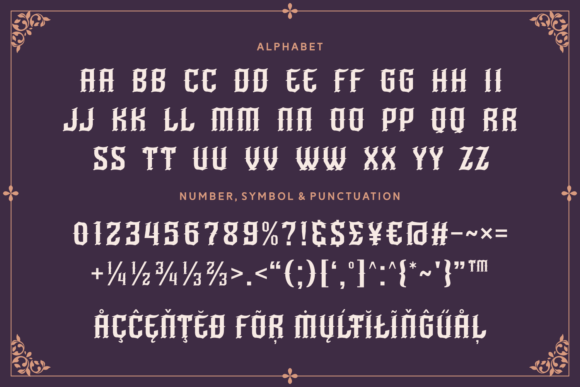
I still remember the frustration of working on a project, pouring my heart and soul into every detail, only to hit a roadblock when it came to choosing the right font. My client wanted something bold, dynamic, and reminiscent of medieval times, but with a modern twist. I scoured the internet, tried out countless fonts, but nothing seemed to fit the bill. That was until I stumbled upon the Giant Leaps Font ✨. It’s a bold and dynamic blackletter font with a modern medieval flair, featuring strong vertical strokes and sharp angular serifs that blend Gothic tradition with contemporary design aesthetics.
An Honest Review of Giant Leaps Font
- ✨ Unique and eye-catching design: The Giant Leaps Font stands out from the crowd with its distinctive blackletter style and modern flair.
- ✅ Excellent legibility: Despite its bold and ornate design, the font remains surprisingly easy to read, making it perfect for headlines and logos.
- 💼 Versatile and adaptable: From vintage posters to beer labels, tattoo-inspired branding, and regal-themed apparel, this font can adapt to a wide range of design projects.
While the Giant Leaps Font is an excellent choice for many design projects, there are a few things to keep in mind ⚠️:
- 🤔 Limited use in body text: Due to its bold and ornate design, the Giant Leaps Font may not be the best choice for lengthy body text. It’s better suited for headlines, logos, and short paragraphs.
- ⚠️ Pay attention to font size: To ensure optimal legibility, make sure to use the font at a suitable size. It may not be suitable for very small text or low-resolution designs.
- Experiment with the font’s OpenType features, such as Stylistic Alternates and Glyphs, to add more flair to your design.
The Backstory Behind Giant Leaps Font
The Giant Leaps Font was inspired by the medieval illuminated manuscripts of the past, with a modern twist. Its designer aimed to create a font that would evoke a sense of grandeur and history, while still being approachable and versatile. The result is a font that’s both bold and elegant, perfect for a wide range of design projects.
Q: What type of projects is the Giant Leaps Font best suited for?
A: The Giant Leaps Font is ideal for vintage posters, beer labels, tattoo-inspired branding, and regal-themed apparel. It’s also great for headlines, logos, and custom product packaging that needs a commanding and historical presence.
Q: Is the Giant Leaps Font easy to read?
A: Despite its bold and ornate design, the Giant Leaps Font remains surprisingly easy to read, making it perfect for headlines and logos.